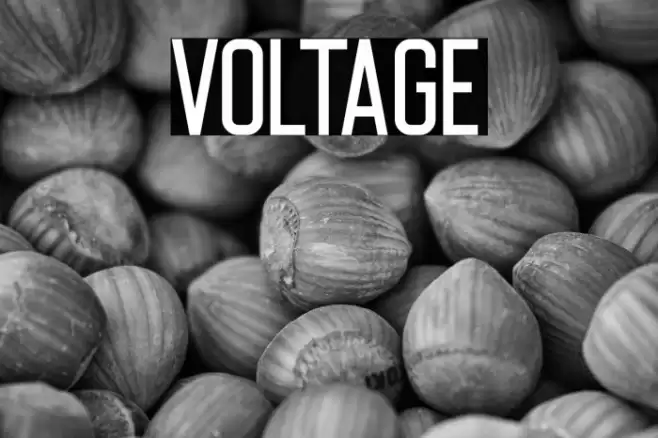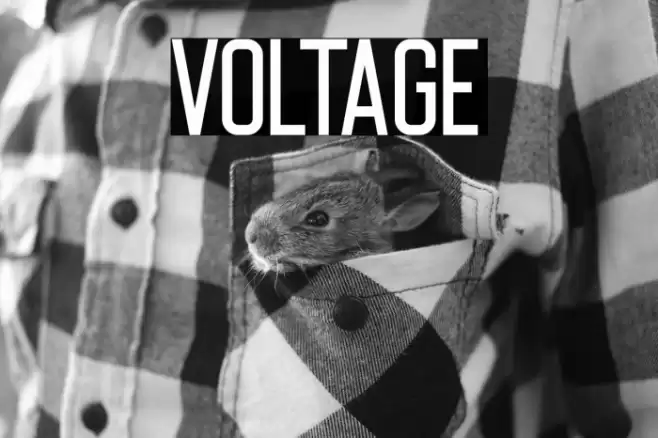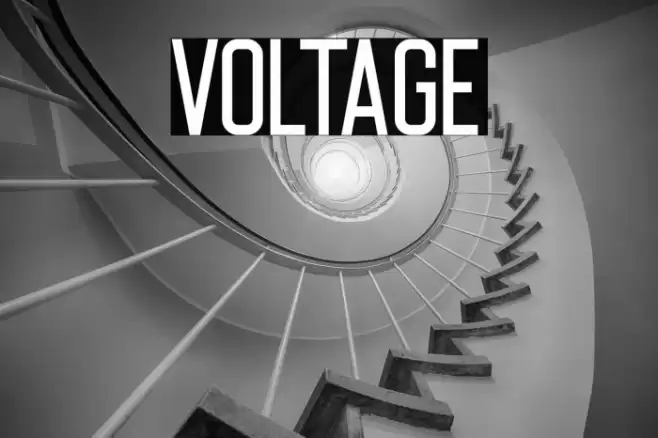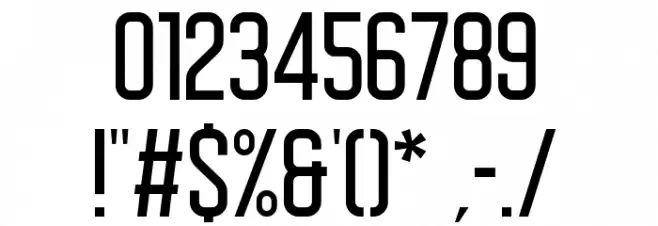
Voltage Font
Voltage Description
This font features a bold, geometric design with clean, straight lines and a modern aesthetic. The uppercase letters are tall and narrow, giving a sense of height and elegance. The lowercase letters maintain a consistent style, complementing the uppercase with a slightly more compact form. Numbers are clear and legible, matching the overall geometric theme. Special characters are distinct and well-integrated, ensuring versatility in various design contexts. The font's uniform stroke width and minimal contrast contribute to its sleek and contemporary appearance, making it suitable for a wide range of applications.
A bold, geometric font with a modern and sleek design from Uncategorized fonts.
- Proposed Projects: Ideal for branding, headlines, posters, and digital media where a modern and bold statement is needed.